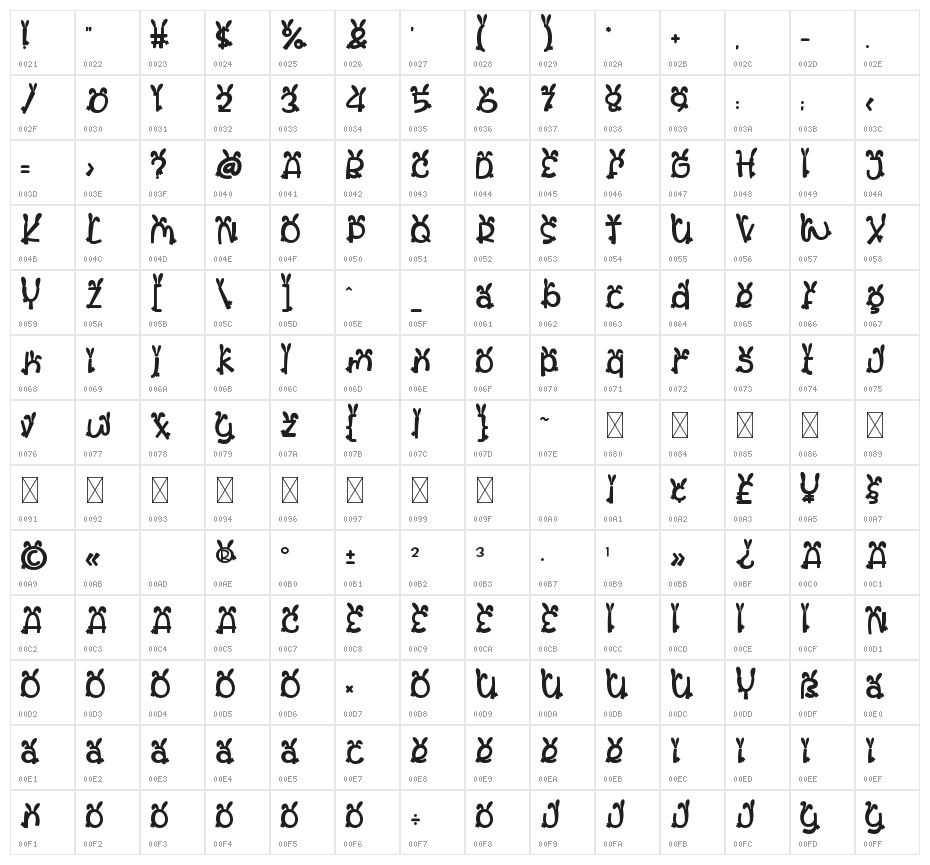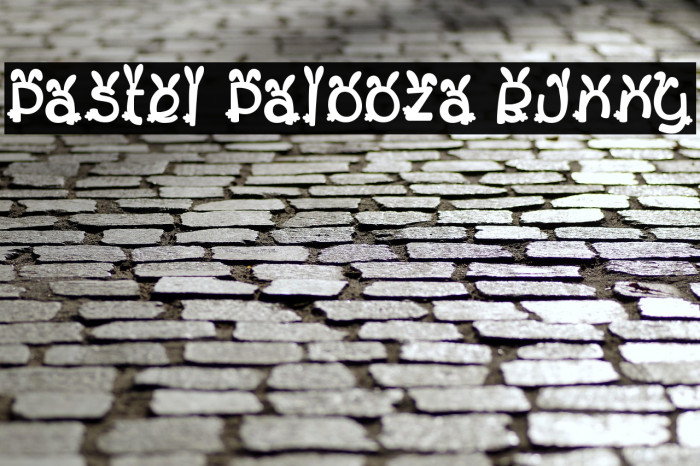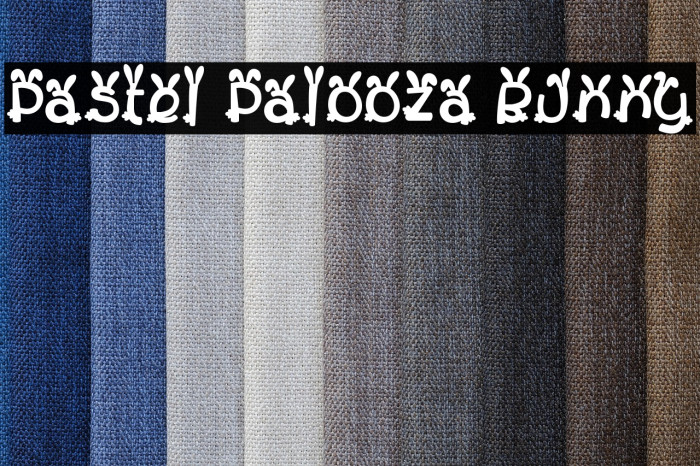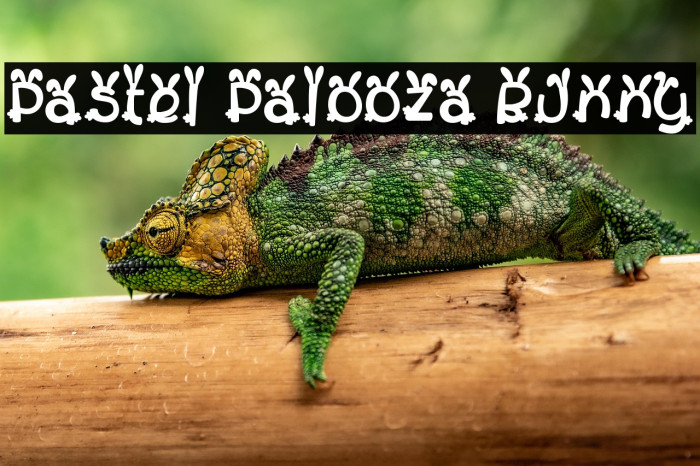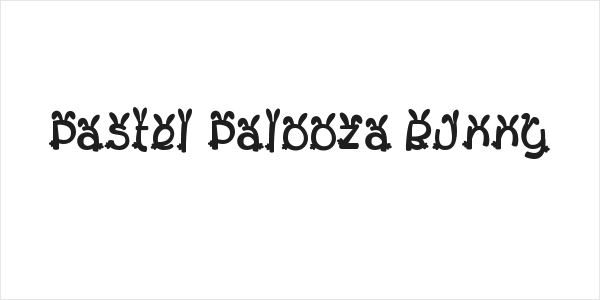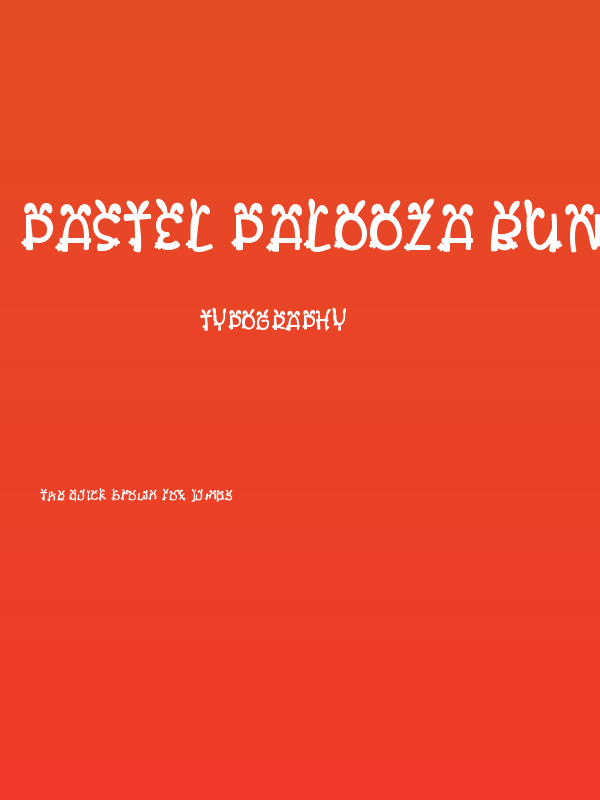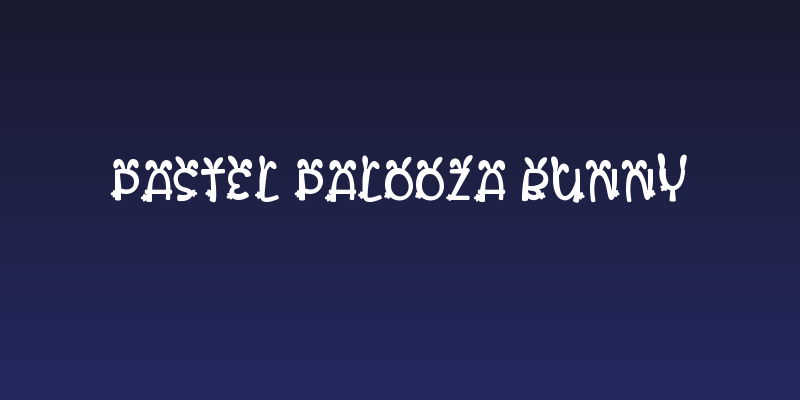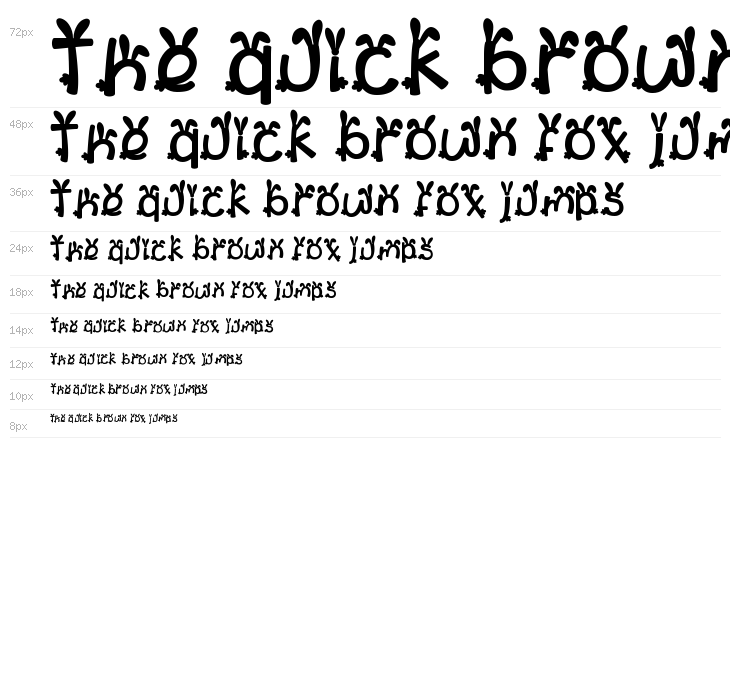
Pastel Palooza Bunny Font
Pastel Palooza Bunny Description
This whimsical and playful font features a unique design where each character is adorned with bunny ears and feet, creating a lively and festive appearance. The letters are bold and rounded, with a consistent thickness that adds to the cartoonish and fun aesthetic. The inclusion of bunny elements gives it a distinct personality, making it ideal for projects that require a touch of humor and creativity. The numbers and special characters are similarly styled, ensuring a cohesive look across all text elements.
| Proposed Projects | Ideal for children's books, Easter-themed designs, playful invitations, and any project needing a whimsical touch. |